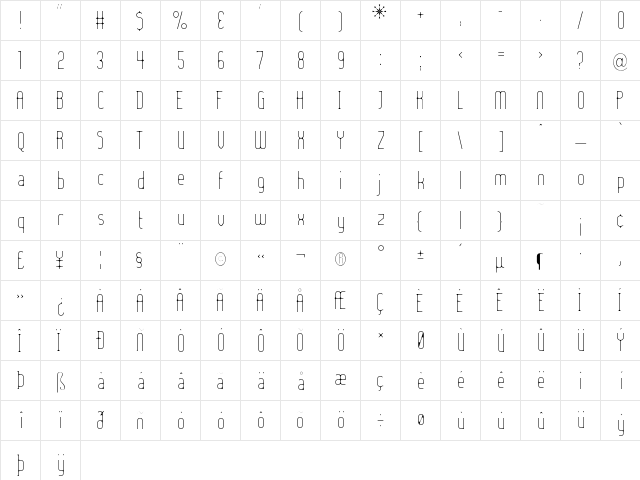
Lady Ice - Extra Light Regular
| Designer | Graham Meade, CybaPee & Apostrophe |
Design Context for Lady Ice - Extra Light Typeface
Lady Ice - Extra Light takes a measured approach to typography — its balanced proportions and neutral character make it a reliable workhorse for both digital and print work. Its slender proportions lend an understated elegance to any composition.